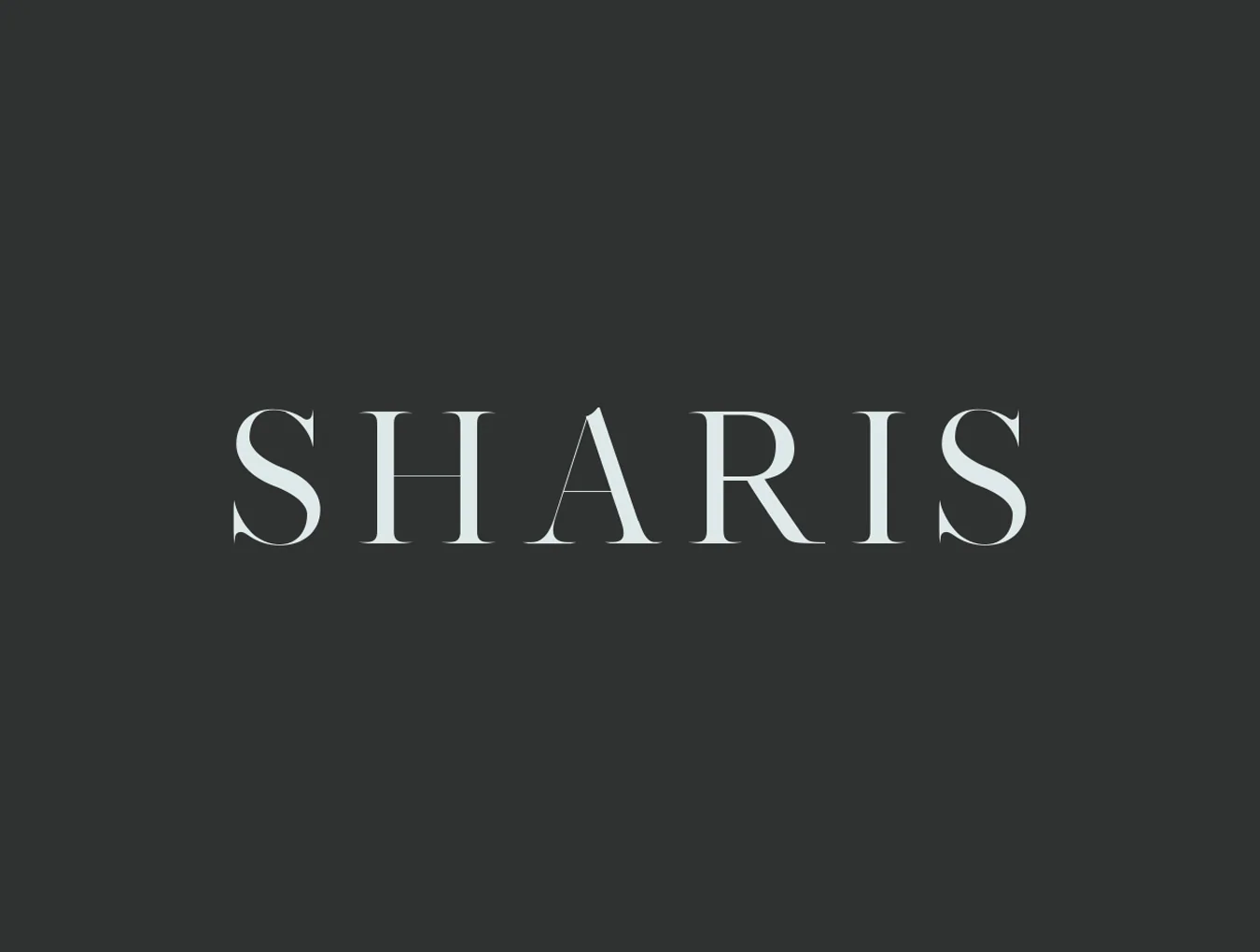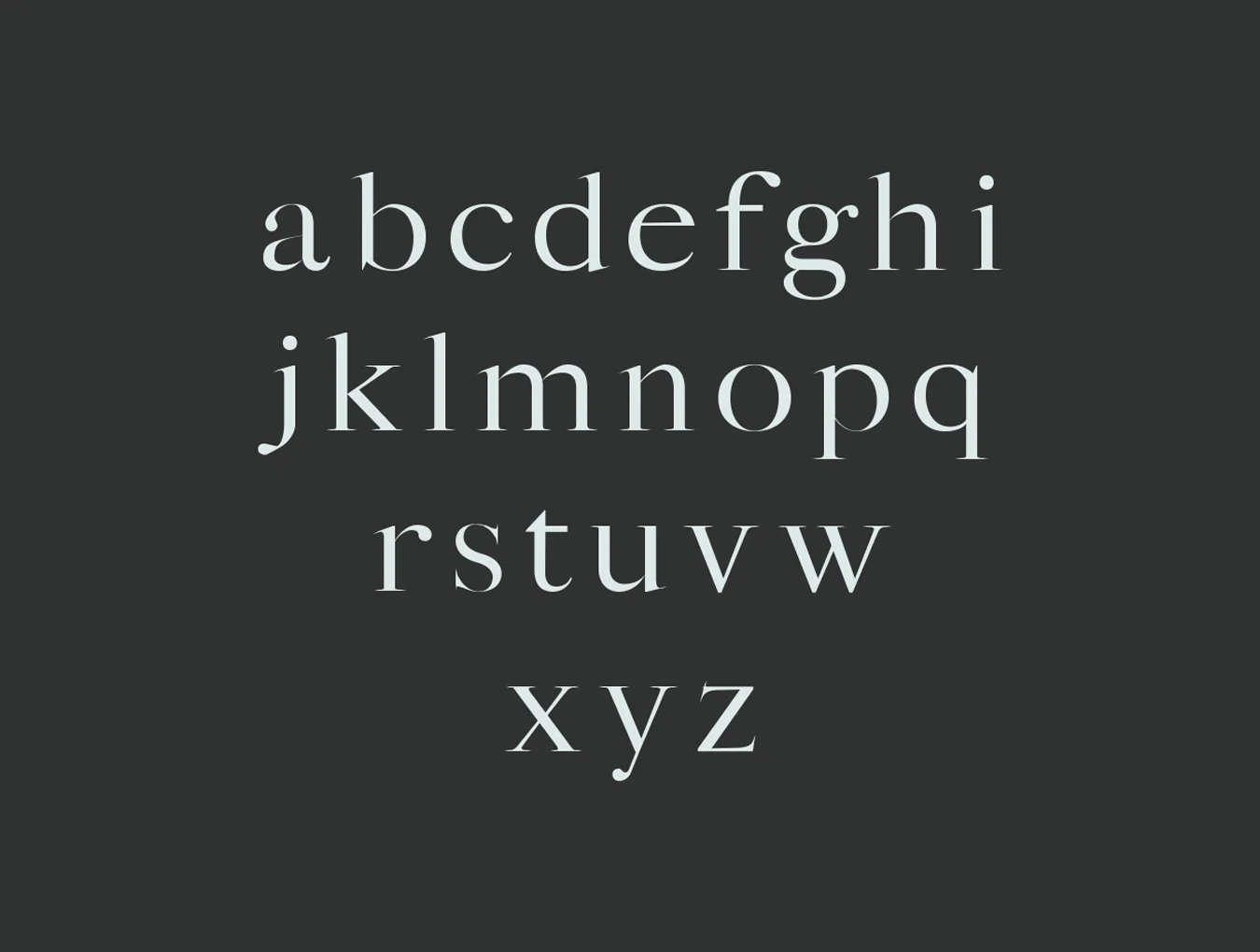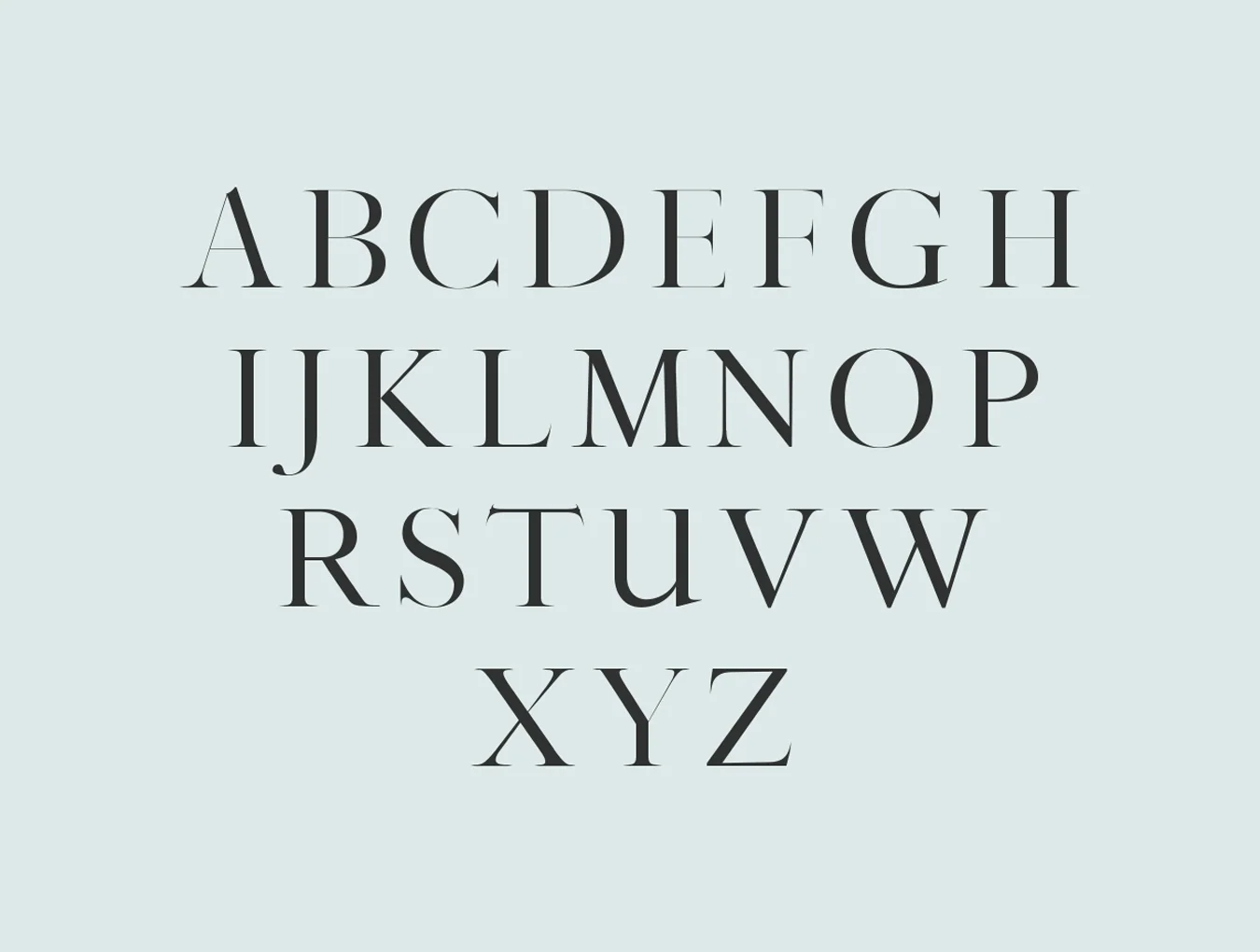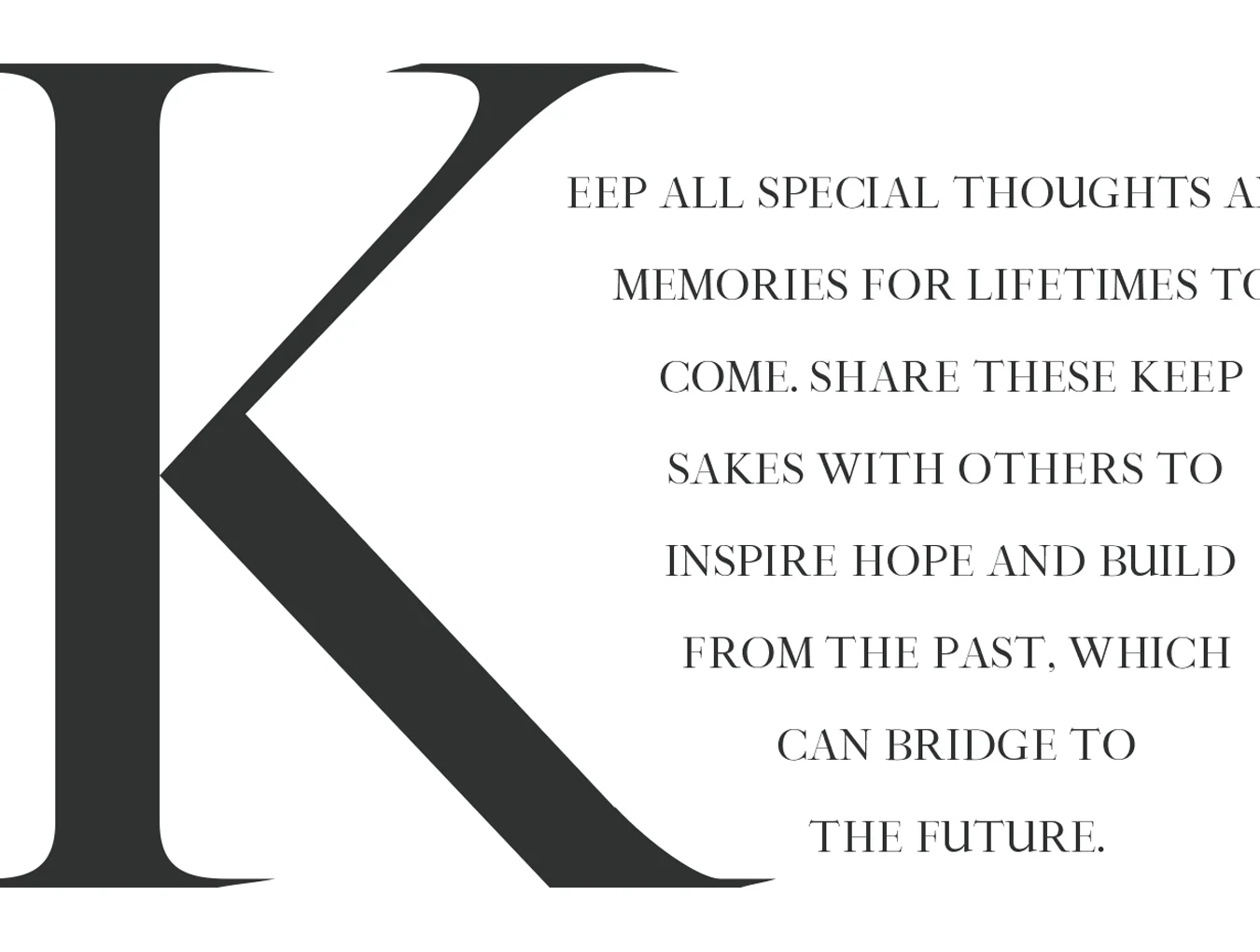
Sharis Serif Typeface
Sharis Serif Font Seven-Family Bundle
Slab serif font style
Regular, Light, Thin, and Medium styles
Distorted, Bold, plus Black weights
Sharis Serif Typeface is a clean, distinctive serif font family with 7 weights and a fresh modern character. Ideal for elegant logos, headlines, websites, fashion magazines, and branding, it shines in spaced all-caps for a refined style or in mixed case for a timeless look.